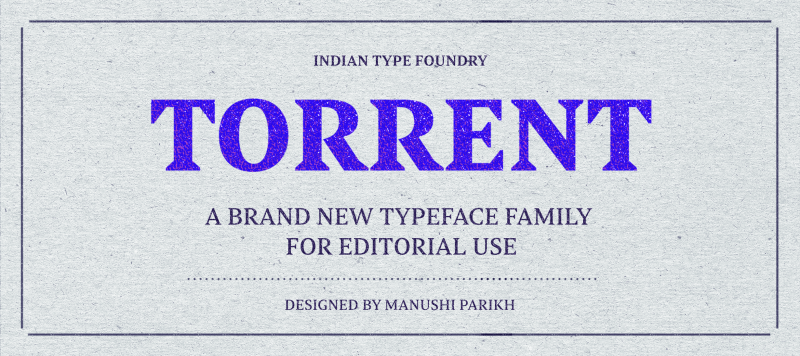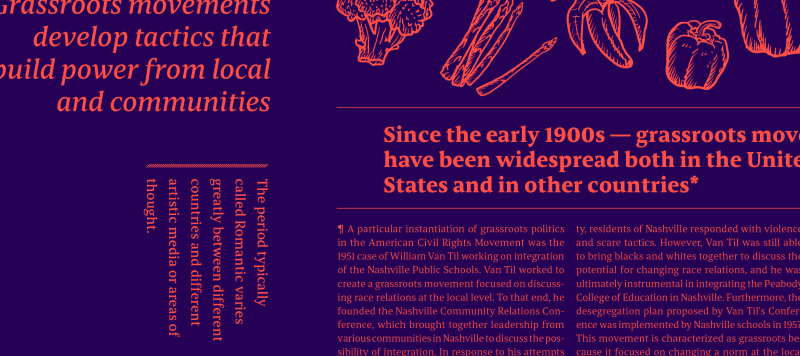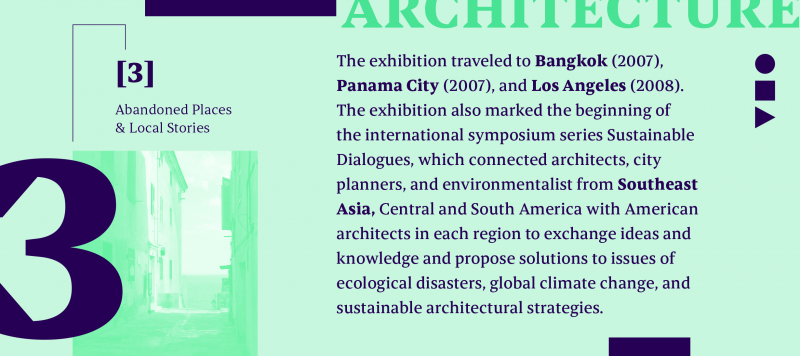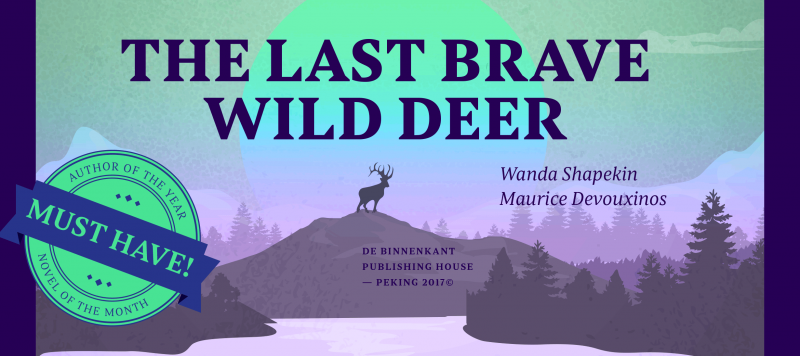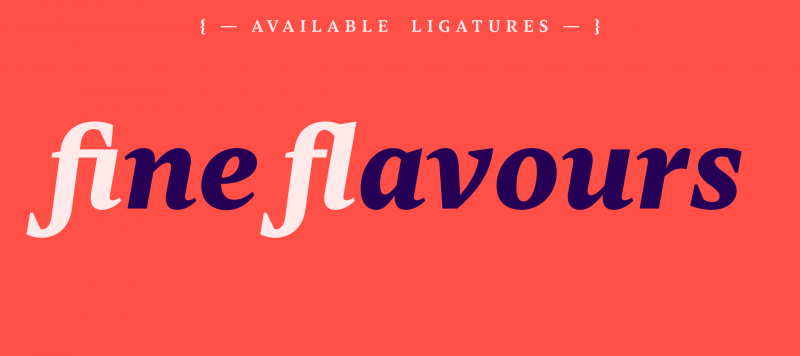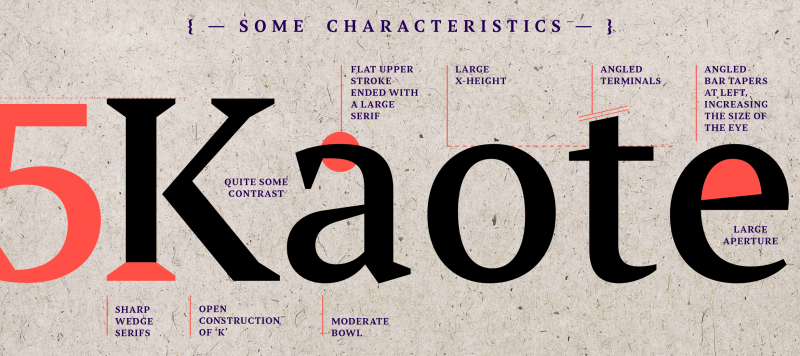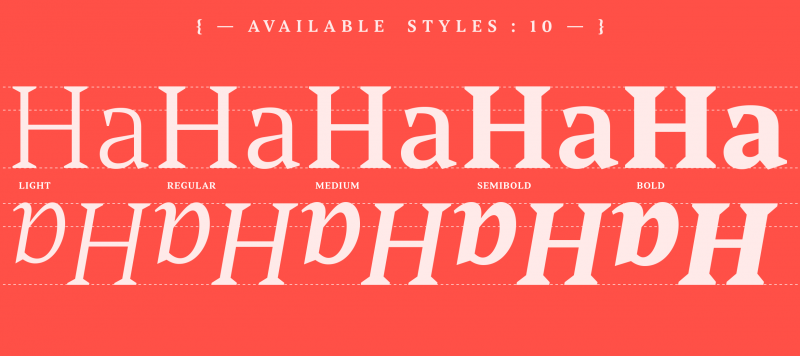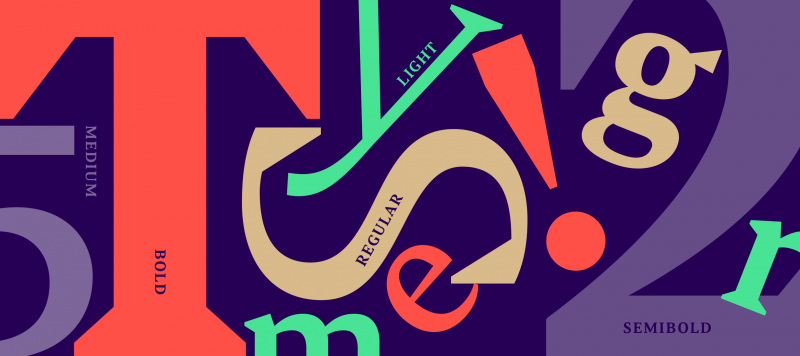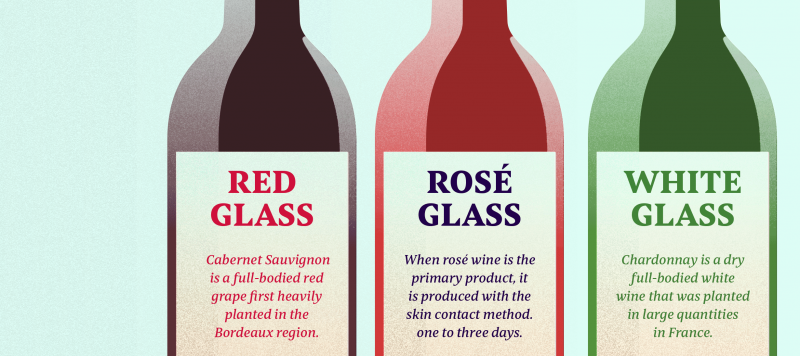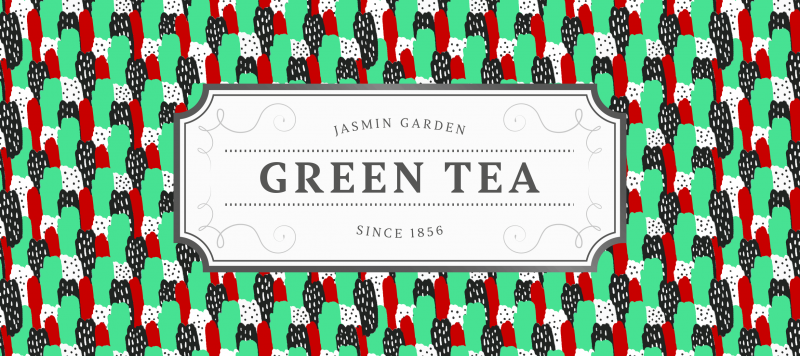
The Torrent family is a multi-purpose typeface with large wedge-formed serifs. Its letters have large x-height and wide-open counterforms. Some joins have been opened up, too – between the straights and the diagonals of ‘K’ and ‘k,’ as well as the vertical center of the ‘R,’ for instance. Torrent’s letterforms have a higher stroke-contrast model, one that is typical for serif typefaces that are intended for use in lengthy passages of text. Indeed, Torrent is a highly readable text face and will look clear even when used in less-than-optimal printing situations (cheaper paper and ink, high-speed presses, etc.). In smaller sizes, Torrent’s wedge-shaped serifs won’t suffer any loss of detail. In fact, wedges of this sort are a hallmark of contemporary serif type design. Torrent is an excellent serif choice for use in book design or editorial design work, as well as in magazines, packaging, and publication design applications.
Family Name Torrent
Designer(s) Manushi Parikh
Classification Serif